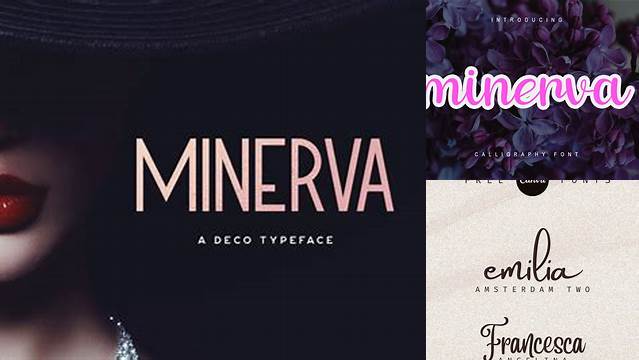
Minerva Font: Free Luxury Font For Stunning Designs
Hey guys! Ready to dive into the world of exquisite typography? Today, we're taking a closer look at Minerva, a stunning free luxury font that's perfect for adding a touch of elegance and sophistication to your design projects. Whether you're a seasoned designer or just starting out, Minerva is a fantastic choice that's sure to impress. Let's explore what makes this font so special and how you can use it to create visually captivating designs. We will discuss its features, ideal applications, and how to download it for free.
What Makes Minerva Font Special?
Minerva isn't just another font; it's a statement. Its design exudes a sense of luxury and refinement, making it ideal for projects where you want to convey a premium feel. The font features clean lines, elegant curves, and a timeless aesthetic. This makes it incredibly versatile, suitable for a wide range of applications, from branding and advertising to editorial design and web design. Minerva font's readability is another key advantage. Despite its luxurious appearance, the font is surprisingly easy to read, even at smaller sizes. This ensures that your message is clear and accessible to your audience. The font's versatility allows it to be used in various design projects. Minerva's ability to adapt to different design needs is what makes it stand out in a sea of fonts. Minerva is ideal for those seeking a touch of sophistication, so it doesn't matter if you are making a logo, poster, or website.
Minerva is designed to capture attention and add a special touch to your project. Minerva has a unique character and creates an unmatched sense of style. This makes it stand out and provides a level of sophistication, perfect for your projects. Minerva allows designers to create a cohesive visual experience. The font's consistent design elements ensure that all text components work in harmony, resulting in a clean and professional look. Minerva's unique combination of beauty and readability makes it ideal for high-end branding and marketing materials. The font immediately elevates the visual appeal of any project, leaving a lasting impression on the viewer. To get your hands on Minerva, it is available for free, making luxury accessible to all designers. This means you can use it in your personal and commercial projects without any financial barrier. The font is easy to download and install, so you can start using it immediately.
The designer of Minerva has carefully crafted each letter to ensure a harmonious and visually pleasing aesthetic. The font's design is sophisticated, making it suitable for projects where you want to convey a sense of luxury and elegance. Whether it's a website, a logo, or marketing materials, Minerva can elevate the visual appeal of your design and create a positive and lasting impression. It's a great option for designers looking to create a brand identity or enhance existing ones. By using Minerva, you can create a strong visual identity that reflects your brand's values and message. The font's unique character adds a touch of sophistication and professionalism, helping your brand stand out from the competition. With its elegant curves and clean lines, Minerva adds a touch of class to any design. This versatility is a great advantage for designers who want to create visually appealing designs that are both beautiful and readable. The font has excellent legibility, even at smaller sizes, so your message is always clear and accessible. This combination of beauty and functionality makes Minerva a top choice for designers across industries. It's a great tool for designers looking to create high-end branding and marketing materials. Its elegant design ensures that your message is delivered with style and sophistication.
Ideal Applications for the Minerva Font
So, where does Minerva really shine? This font is a great choice for a wide array of design projects. Its versatility is one of its key strengths. Let's explore some of the ideal applications where Minerva can truly make a difference.
Branding and Logos
Firstly, Minerva is perfect for branding and logos. Its elegant and sophisticated design makes it an excellent choice for creating a strong brand identity. The font can convey a sense of luxury, trust, and professionalism. This is particularly important for businesses that want to appeal to a high-end clientele. Minerva's clean lines and graceful curves create a memorable logo, that makes your brand stand out from the competition. Whether you're designing a logo for a fashion brand, a luxury hotel, or a premium service, Minerva will give your brand a stylish look.
Website Design
Minerva works great for website design. It's a great option for headlines, titles, and other elements. Its readability ensures that your website's content is easy to read. The font adds an elegant touch to your web design. By using Minerva, you can create a visually appealing website that provides a great user experience. When choosing a font for your website, readability is key. Minerva is easy to read on screens. This means that your website visitors will be able to easily read your content, regardless of their screen size or device. Minerva gives your website a professional and sophisticated look. This is really important for creating a positive impression on your visitors.
Editorial Design
Minerva is also a great choice for editorial design. It is well-suited for magazines, books, and other publications. Its elegant design and readability make it ideal for creating visually appealing layouts. Minerva is the perfect choice for headings, body text, and other design elements. It gives your publications a professional and elegant look. In addition, the font is easy to read. This makes it a great choice for long-form content, such as articles and essays. Using Minerva, you can create visually appealing publications that keep your readers engaged and informed. The font's timeless design ensures that your publication will look great for years to come.
Advertising and Marketing Materials
Minerva is awesome for advertising and marketing materials. It can grab the attention of your target audience and create a lasting impression. The font's elegance and sophistication make it ideal for luxury and high-end brands. You can use Minerva for headlines, taglines, and other elements. This will give your advertising and marketing materials a professional look. It gives your brand a unique and memorable look that will help it stand out from the competition. Whether you're creating print ads, social media graphics, or email marketing campaigns, Minerva can help you achieve your marketing goals. It can create advertising and marketing materials that have a memorable impact.